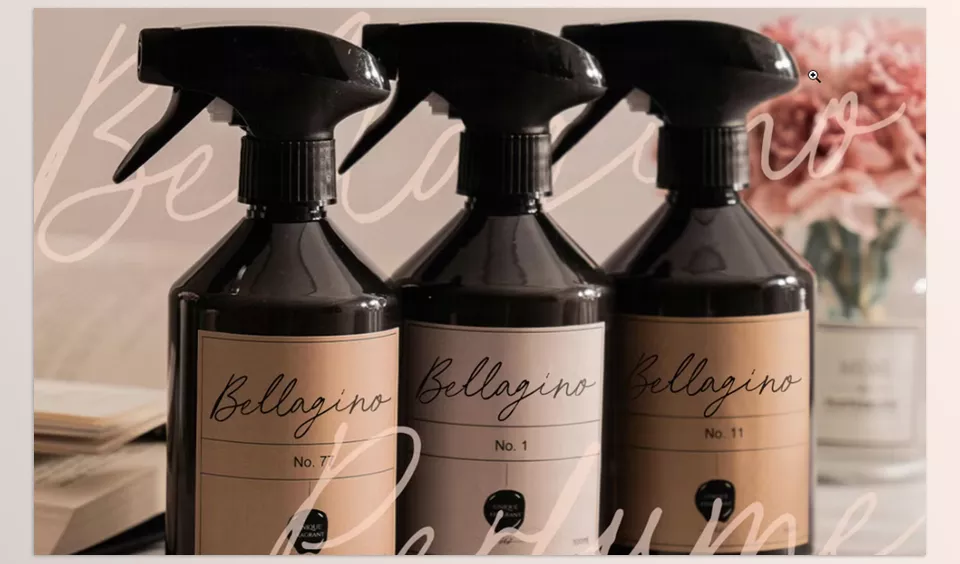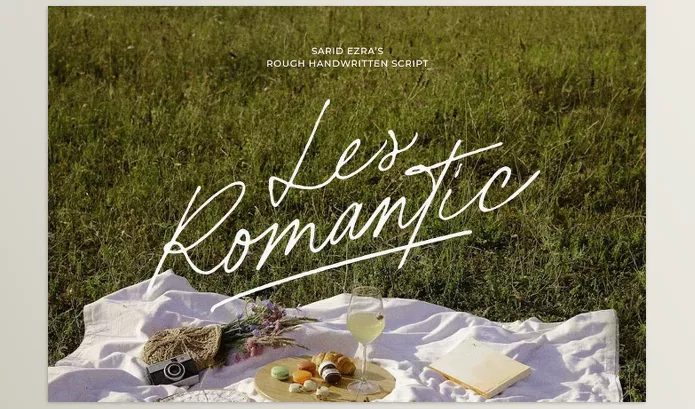
Les Romantic Rough Handwritten Font brings natural beauty and aliveness to your crafts with stunningly unsophisticated cursive typography. As it is perfect for labels, logos, quotes, or even invitations to weddings, it can also be useful for all sorts of creative magical designs. Its unique underlining ligatures allow professional readers to enhance creativity and it comes with multi-language support.
Image 1: Add a personal touch with Les Romantic – a handwritten script full of character and charm.
Image 2: From logos to love notes, Les Romantic brings natural elegance to every design.